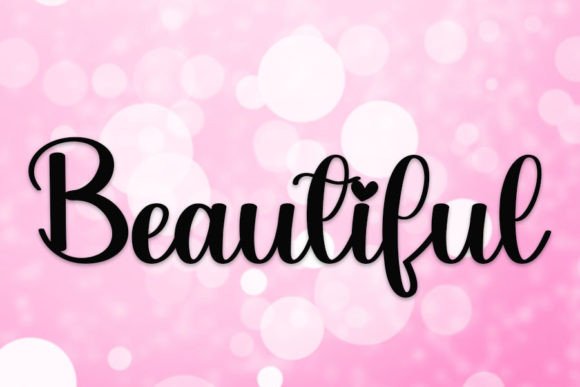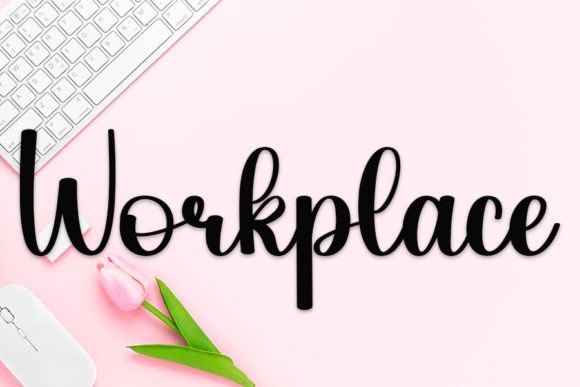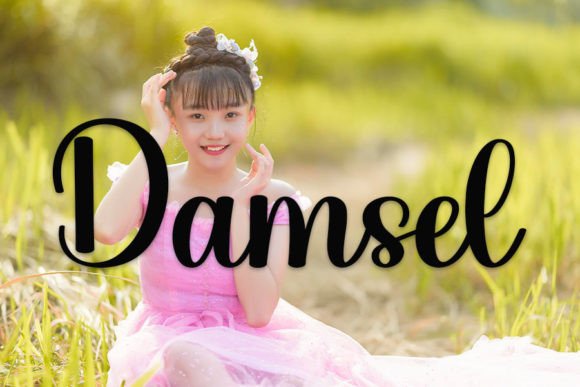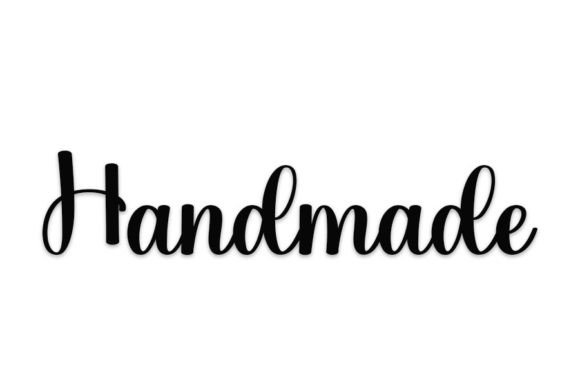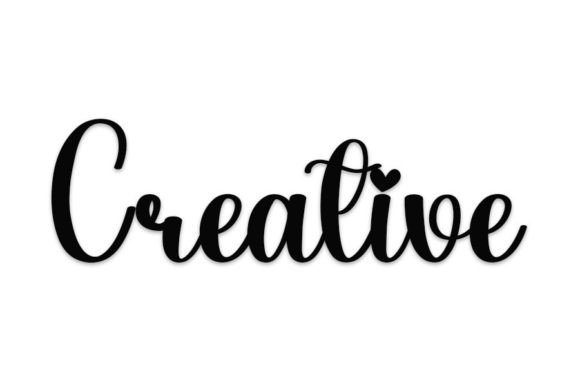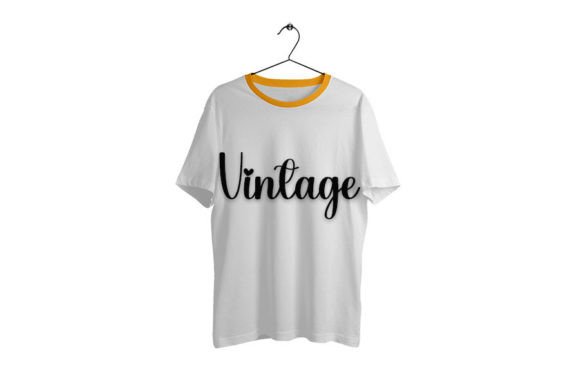
The Magical World of Barbie Font: A Designer’s Delight
I’ll never forget the time I was working on a project for a client who wanted a elegant and sophisticated look. I had spent hours browsing through font libraries, but nothing seemed quite right. That’s when I stumbled upon the Barbie Font ✨. Its beautiful, handwritten curves and elegant touch instantly caught my eye. I knew right then and there that it was the perfect fit for my project.
An Honest Review of Barbie Font
- ✨ The elegant and sophisticated look that adds a touch of luxury to any design
- ✅ The incredibly distinct and timeless style that sets it apart from other fonts
- 🌈 The versatility of the font, making it suitable for a wide range of projects, from branding to packaging
- 💫 The beautiful, flowing curves that give the font a sense of movement and energy
While I absolutely adore the Barbie Font, there are a few things to keep in mind 🤔:
- ⚠️ The font may not be suitable for very small text sizes, as some of the details may get lost
- ⚠️ Some of the glyphs and special characters may not be immediately obvious, requiring a bit of exploration to find
If you love the Barbie Font, you might also enjoy these similar fonts:
- Lobster – A elegant, cursive font with a similar feel to Barbie Font. Use it for luxury brands or high-end designs.
- Pacifico – A beautiful, handwritten font with a relaxed, beachy vibe. Use it for casual, laid-back designs.
- Great Vibes – A elegant, script font with a similar sense of movement and energy to Barbie Font. Use it for creative, artistic designs.
- Alex Brush – A lovely, handwritten font with a whimsical, elegant feel. Use it for designs that require a touch of sophistication.
The Backstory of Barbie Font
The Barbie Font was designed by a talented typographer who wanted to create a font that captured the essence of elegance and sophistication. Inspired by classic calligraphy and handwriting, the font was crafted to be both beautiful and timeless. While the designer’s exact inspiration may be a mystery, it’s clear that the Barbie Font has become a beloved favorite among designers and crafters alike.
Q: What is the Barbie Font?
A: The Barbie Font is a beautiful, handwritten font characterized by its elegant touch and timeless style.